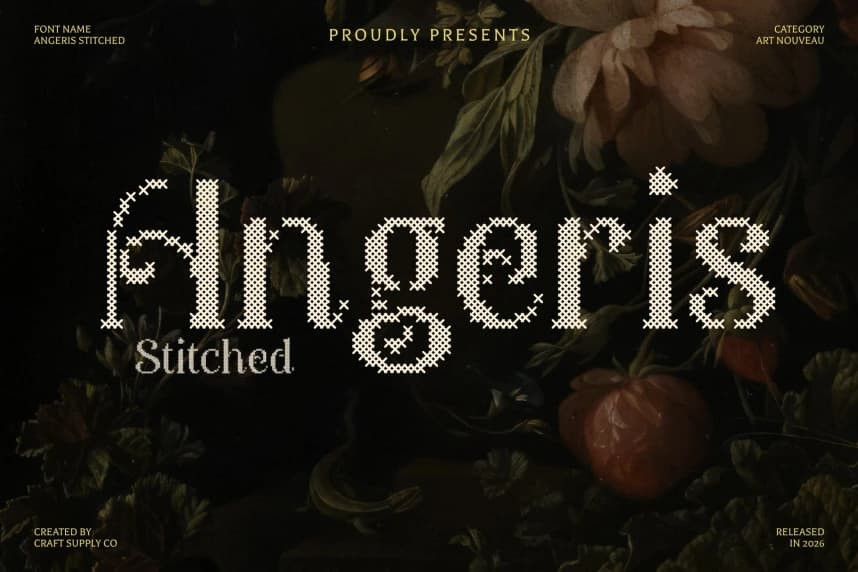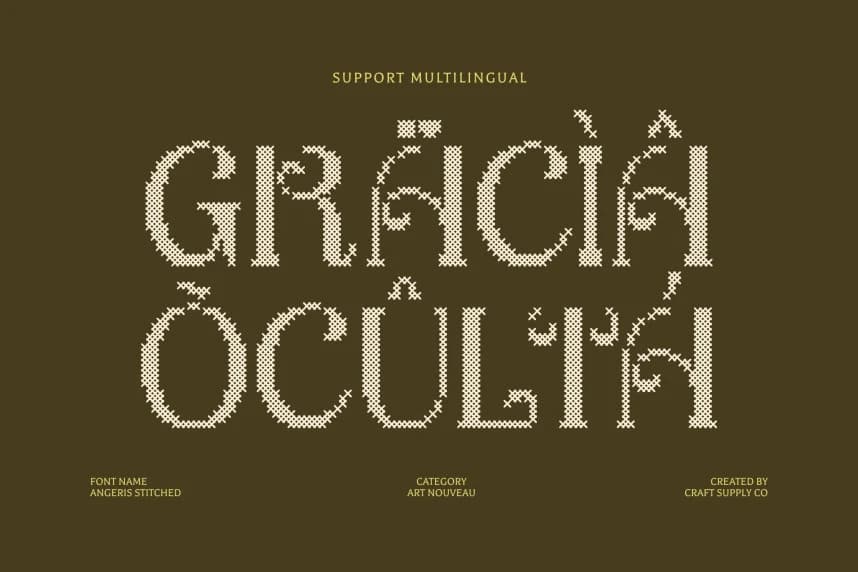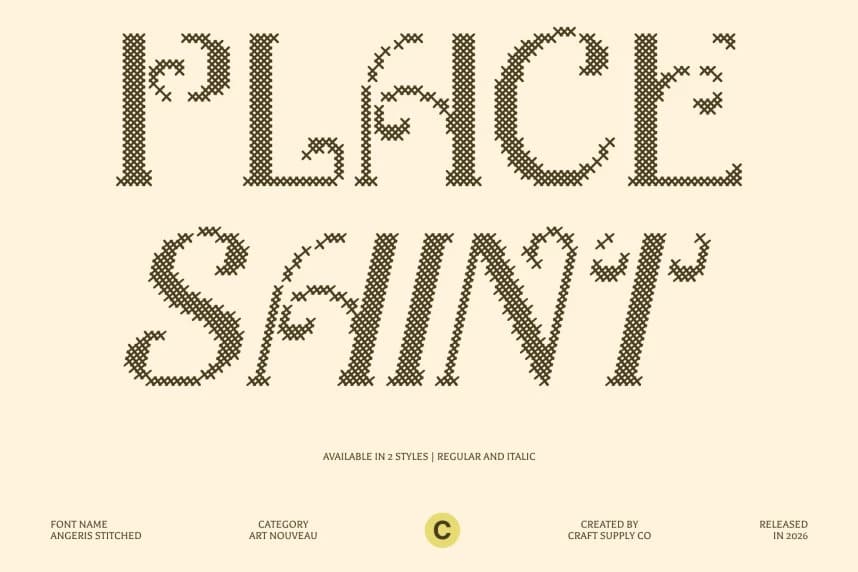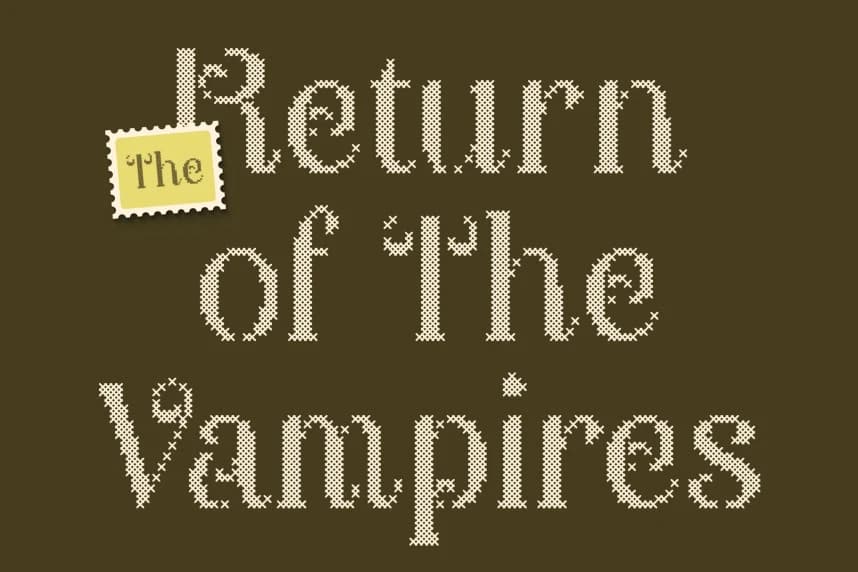
Angeris Stitched Font
Angeris Stitched Font – A Nod to Retro Elegance with Handcrafted Charm Retro Art Nouveau Inspiration. This font draws inspiration from the iconic Art Nouveau movement, infused with a retro charm that evokes nostalgia and early 20th-century sophistication